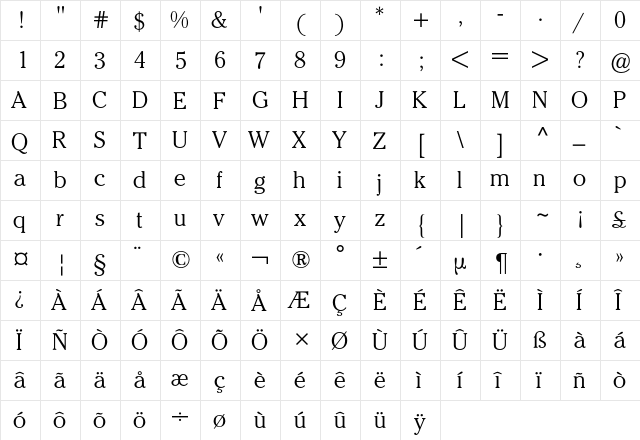
Cheltenham ITC BQ Regular Font Preview
Cheltenham ITC BQ Regular
Cheltenham ITC BQ Regular Font Details
Design Context for Cheltenham ITC BQ Typeface
Cheltenham ITC BQ offers clean, dependable letterforms without strong stylistic allegiance, making it a practical choice for designers who need flexibility.